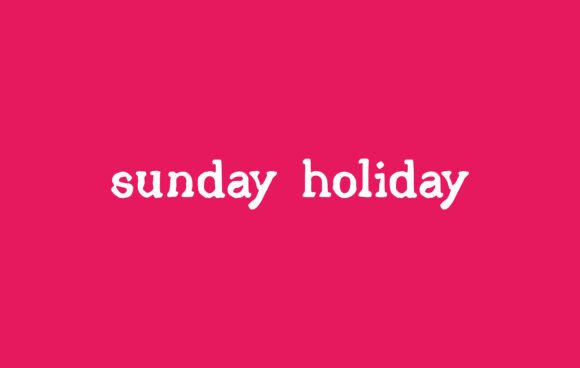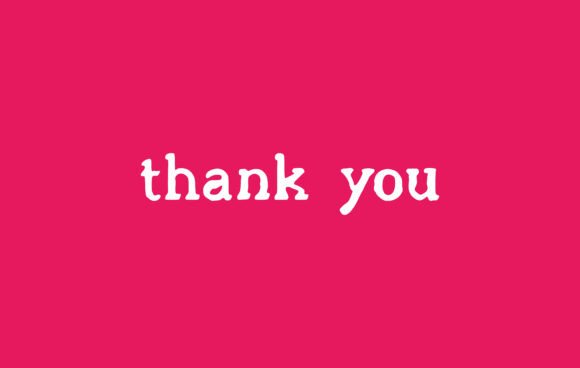
Introduction to Miranda Font
Have you ever stumbled upon a font that makes your creative ideas leap off the page? For many designers, that moment is a game-changer. For me, it was when I discovered the beautiful Miranda Font. With its authentic handwritten touch and romantic flair, this font has become an instant favorite among creatives.
As a valuable design resource, the Miranda Font is perfect for adding a personal touch to your high-quality projects. Whether you’re working on a magazine headline, social media post, or wedding invitation, this font is sure to elevate your design to the next level. Plus, its versatility makes it ideal for designers looking for a reliable go-to font for their creative projects.
What sets the Miranda Font apart is its effortless legibility, making it suitable for both title and body text. And the best part? It’s available for free download with a transparent background, allowing you to easily integrate it into your designs.
- Features a unique, elegant design with a clear and legible font style, making it perfect for both digital and print projects.
Honest Review: Miranda Font
As a designer, I’m always on the lookout for high-quality design resources to elevate my creative projects. The Miranda Font has caught my attention, and I’m excited to share my honest review.
- Unique and elegant design aesthetic that adds a touch of sophistication to any project
- Wide range of font styles and weights to suit different design needs
Any limitations ⚠️
- Limited character set, which may not be suitable for extensive text-based projects
- No bold or italic font options, which may limit its versatility
Overall, I’m impressed with the Miranda Font’s potential as a design resource. Its elegant design and wide range of font styles make it an excellent choice for creative projects. However, its limitations may be a concern for designers requiring extensive text-based content or more advanced font options. Nevertheless, I would recommend the Miranda Font as a valuable addition to any designer’s toolkit.
Miranda Font
The Miranda Font is a high-quality design resource perfect for creative projects that require a unique touch. With its elegant and sophisticated style, it’s an ideal choice for designers and artists looking to add a touch of class to their work.
Tips for Getting the Most Out of Miranda Font
For the best results, use the Miranda Font with a transparent background to create a seamless design. You can also experiment with different font sizes and styles to create a unique look.
The Miranda Font is ideal for use in wedding invitations, corporate branding, and other high-end design projects where a touch of sophistication is required. It’s also a great choice for free download and use in personal projects.